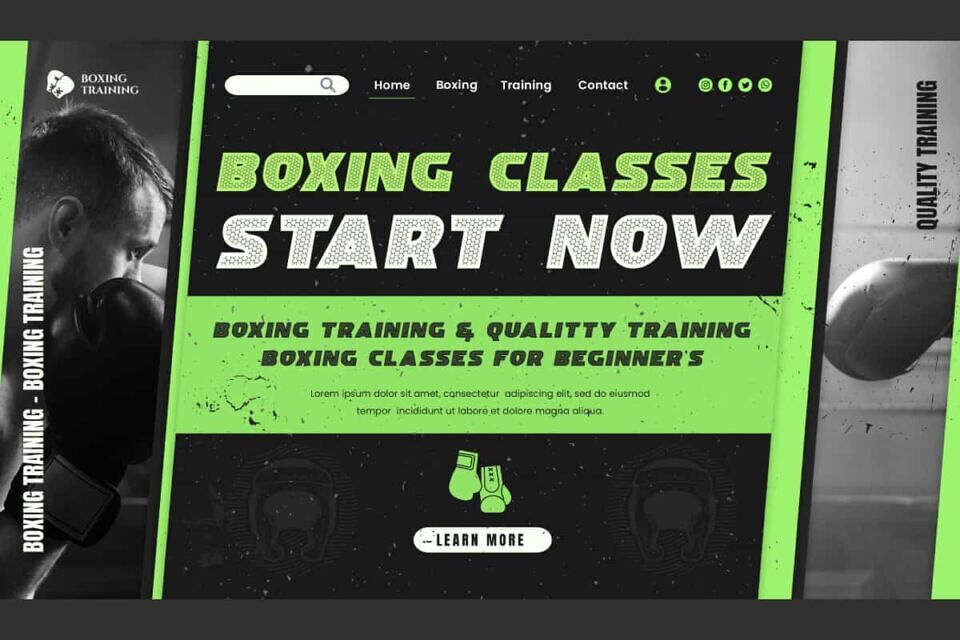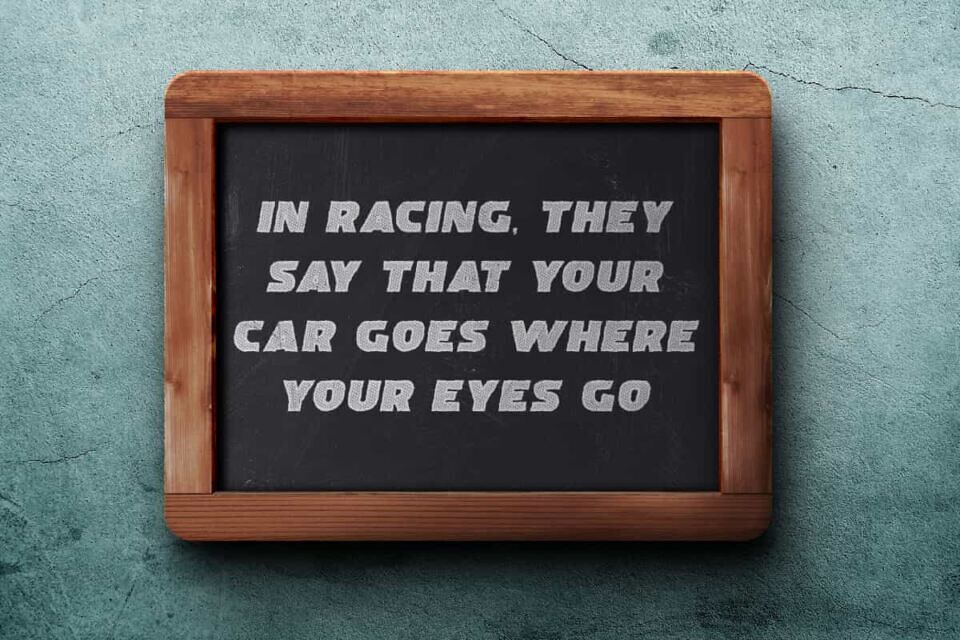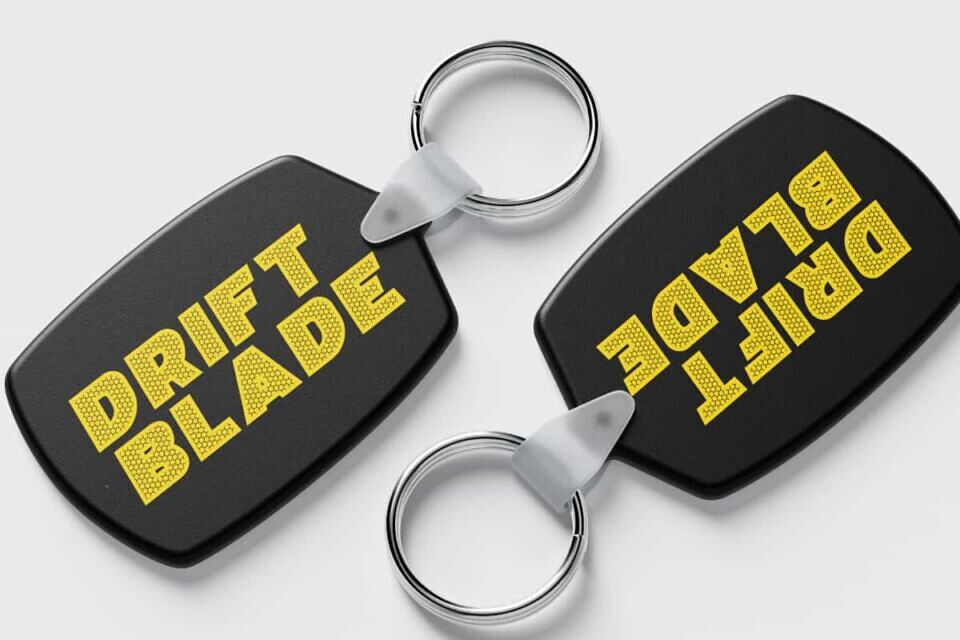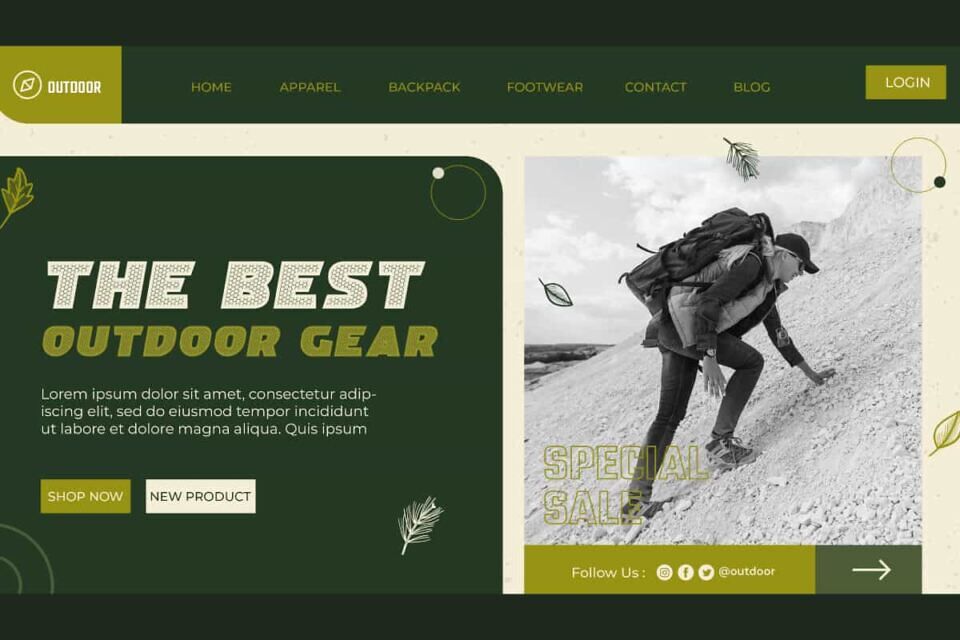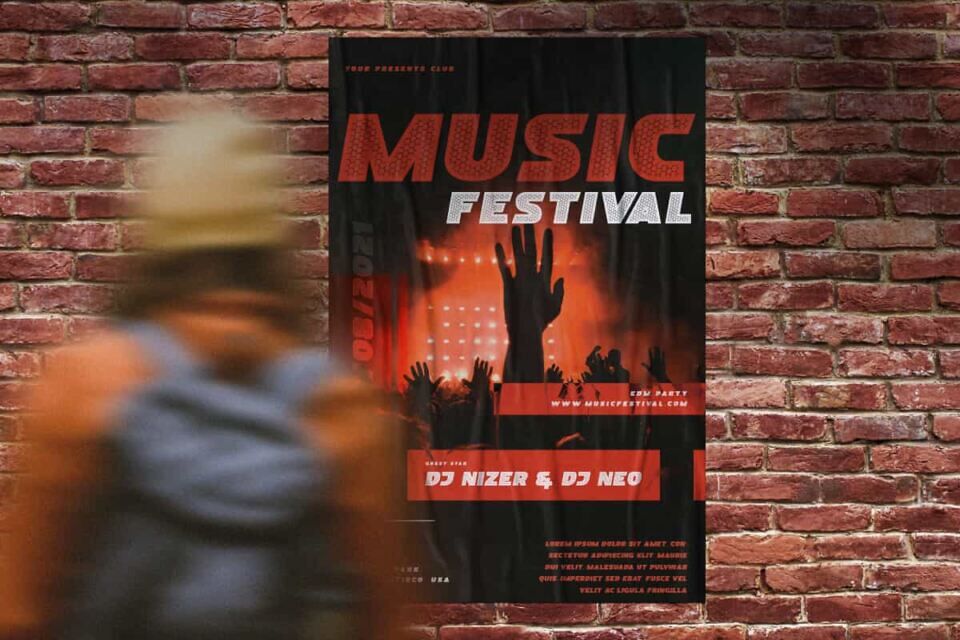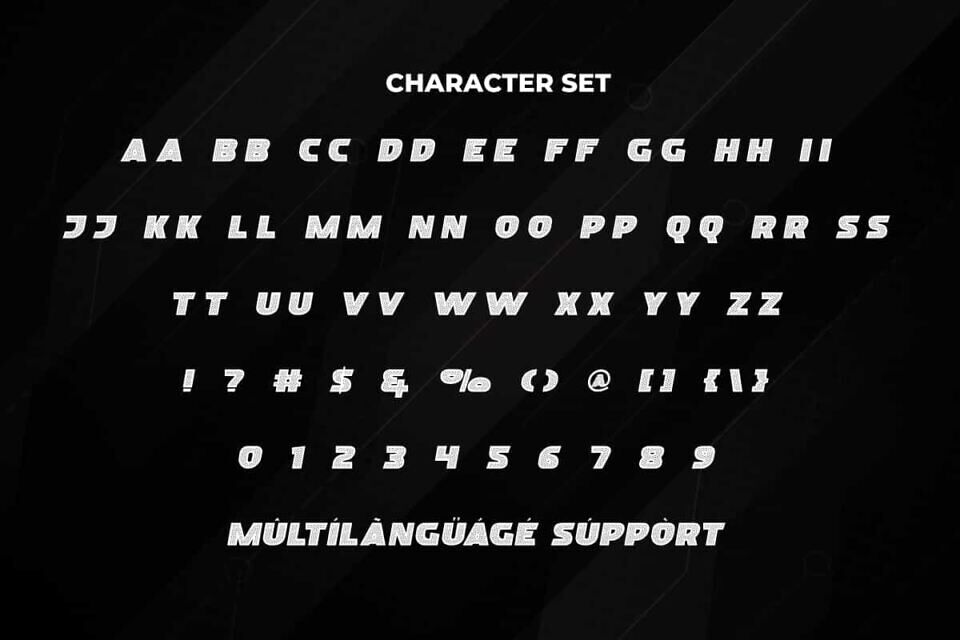
Drift Blade Font
Drift Blade Font is a cool and unique display font with racing style, created by RaisProject. This font has special details in the letters  that make it standout and different from the others.
It will be good for any designs, such as custom design, poster, product packaging, quotes, poster, signage, brand image, advertisement, invitation, label, marketing material, stationery, website page, and more!
Drift Blade Font includes a full set of ALL CAPS for Uppercase and Lowercase Letters, Numerals, and large range of Punctuation. This awesome font will be suitable for various industries, such as fashion, automotive, sports, game, barber shop, cafe, event or festival, photography, printing, publishing, etc.